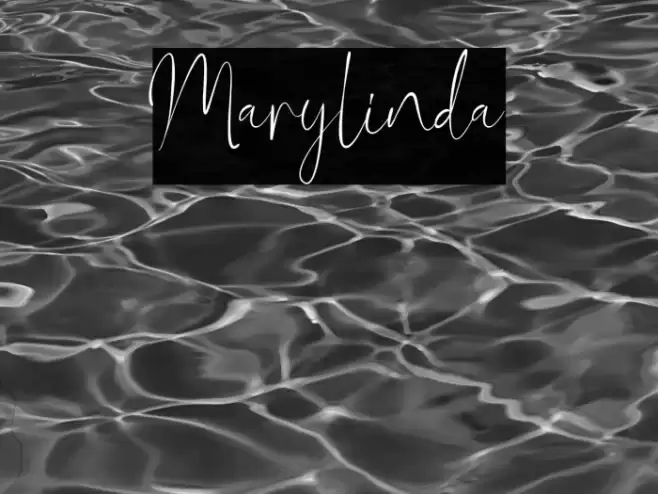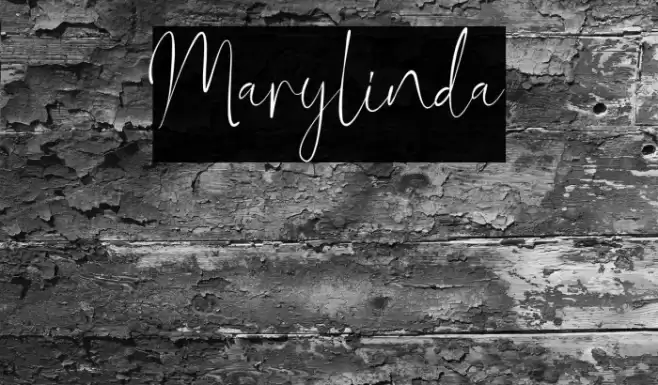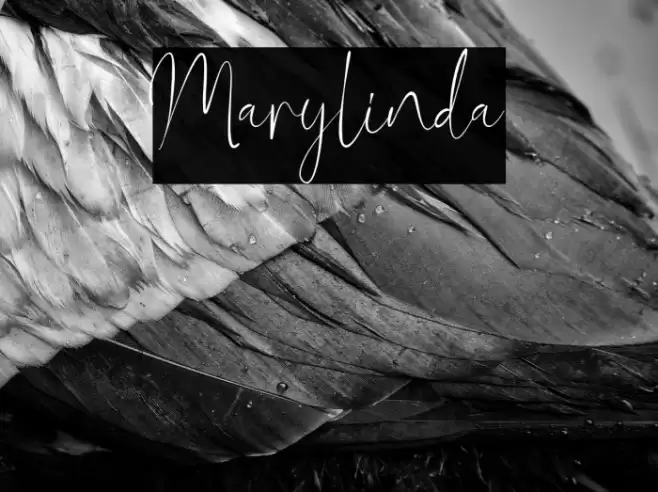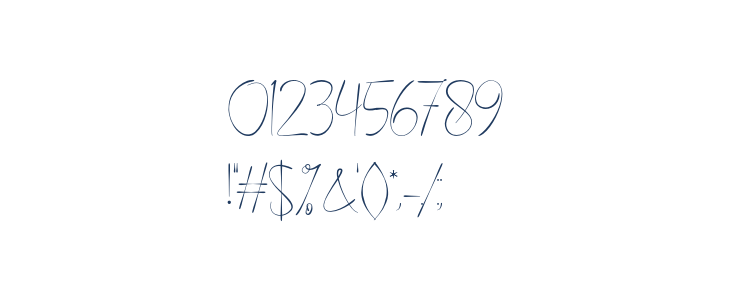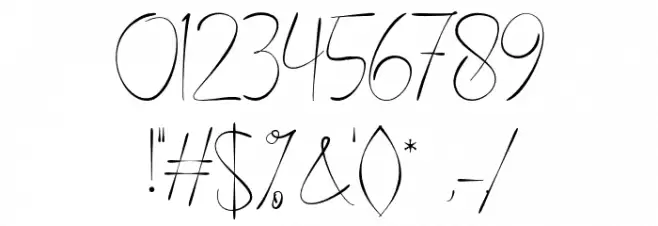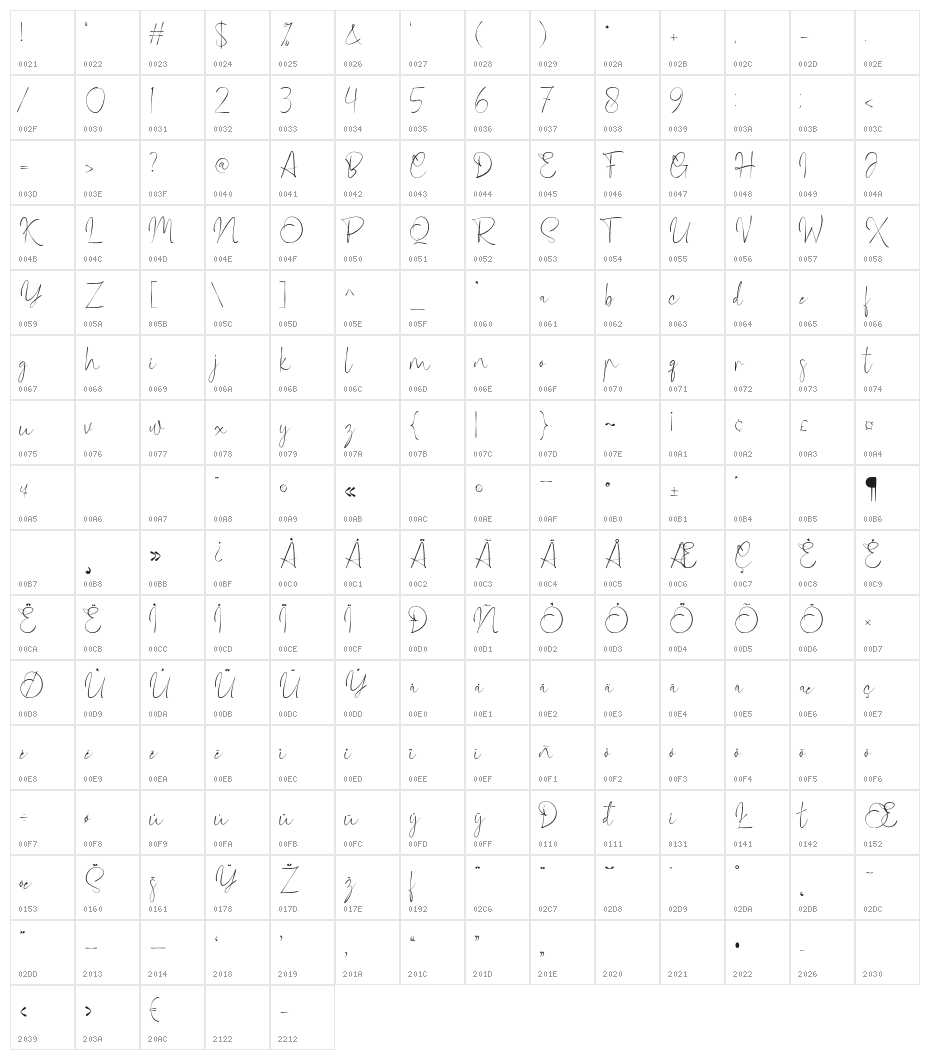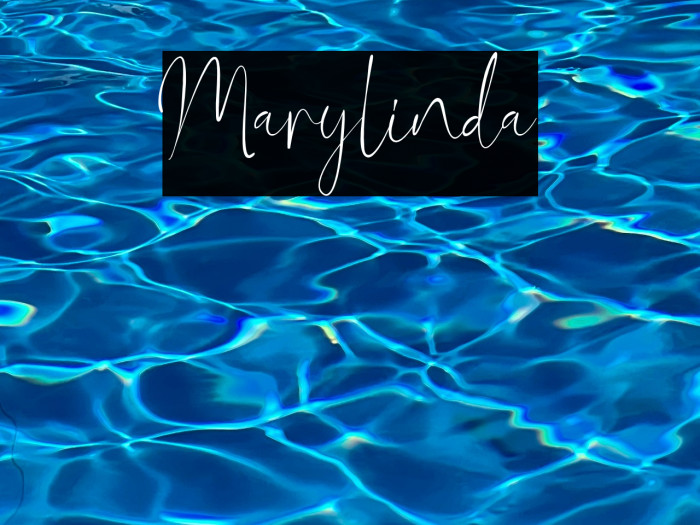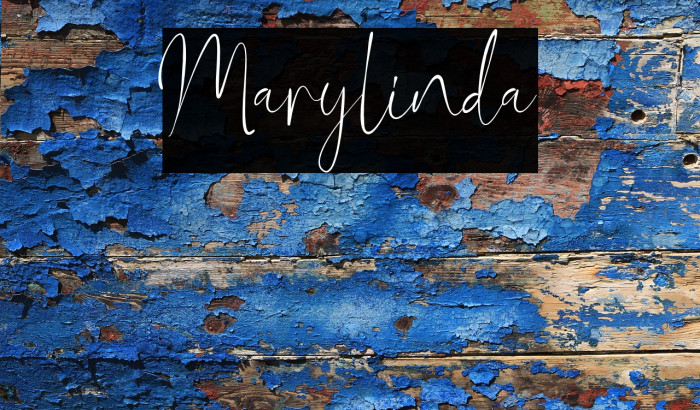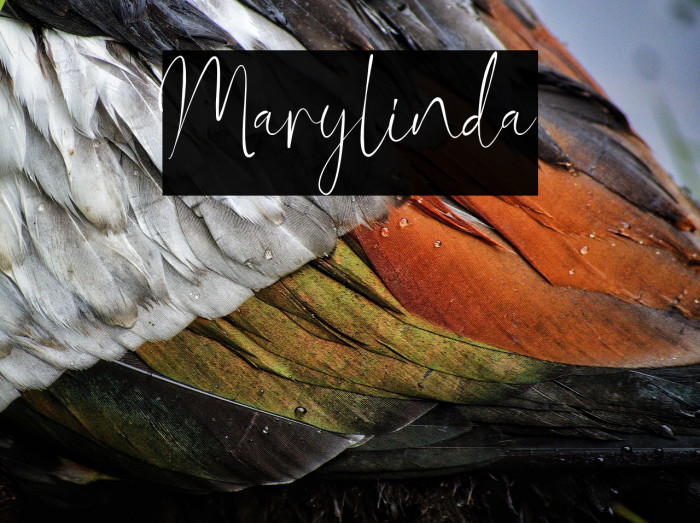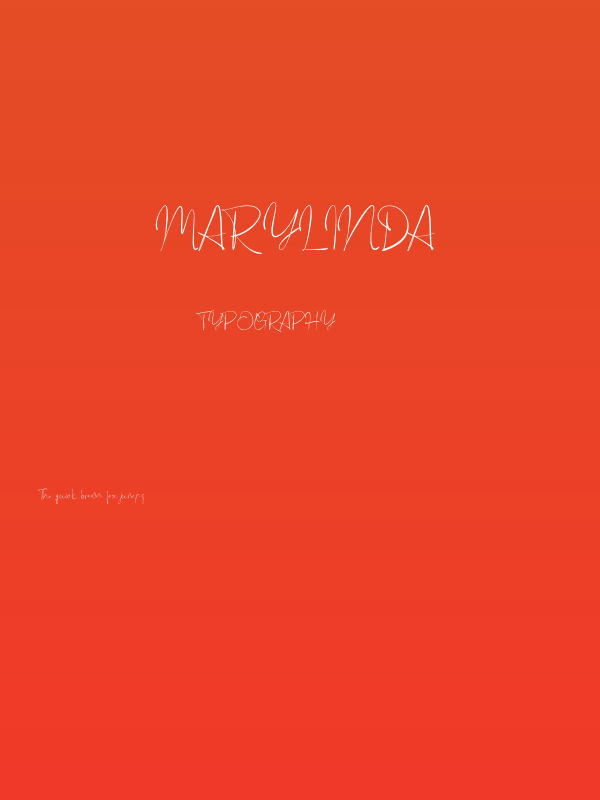
Marylinda Font
Marylinda Description
This font features an elegant, flowing script style that mimics the fluidity of natural handwriting. The letters are characterized by their elongated, sweeping curves and delicate strokes, giving it a sophisticated and artistic appearance. The uppercase letters are particularly ornate, with intricate loops and flourishes that add a touch of drama. The lowercase letters maintain a consistent style, with smooth connections between characters, enhancing readability while preserving the decorative nature. The numerals are similarly styled, with a graceful yet clear design. Special characters are thoughtfully integrated, maintaining the overall aesthetic. This font is ideal for projects that require a personal, artistic touch, such as invitations, branding, and creative design work.
An elegant, flowing script font with artistic curves and delicate strokes from Uncategorized fonts.
- Proposed Projects: Ideal for wedding invitations, branding, greeting cards, and artistic projects.
- Use Case: Logos, Invitations, Artistic Design